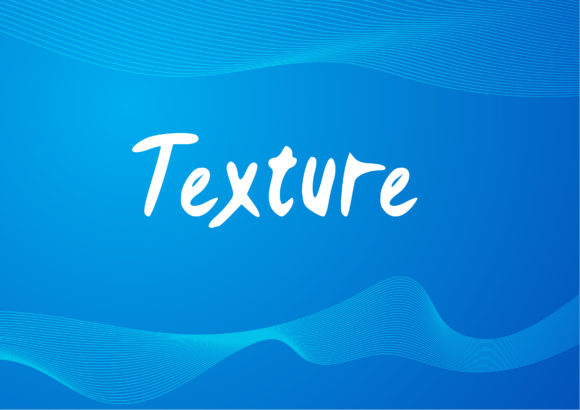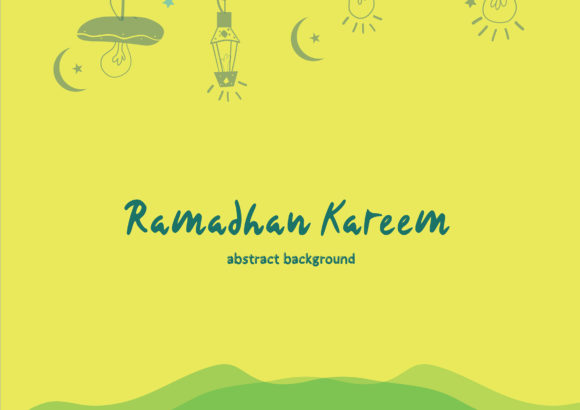
Introduction to Kolonjono Font Font
Have you ever been brainstorming for hours, trying to come up with the perfect idea for your next design project, but everything just seems to be missing that special something? You’re not alone. As creatives, we’re always on the lookout for that one resource that can take our projects from meh to mesmerizing. That’s where the Kolonjono Font Font comes in – a playful and modern handwritten font that’s guaranteed to boost your creativity and elevate your designs.
With its versatility and high-quality design, the Kolonjono Font Font is the perfect addition to any design resource. Whether you’re working on a logo design, social media campaign, or even a book title, this font is sure to make your project stand out. Plus, with its transparent background, you can easily pair it with any other font or design element to create a stunning visual effect.
Key Features of Kolonjono Font Font
- Features a unique, modern design with a transparent background, allowing for seamless integration with various backgrounds
- Supports a wide range of languages, making it a versatile choice for designers working on international projects
- Designed at a high resolution of 300 DPI, ensuring crisp and clear typography in various applications
- Perfect for use in logos, branding materials, and other design elements where a clean and modern font is required
Honest Review: Kolonjono Font Font
As a designer, I’m always on the lookout for high-quality design resources that can elevate my creative projects. The Kolonjono Font Font caught my attention with its unique and elegant design. Here’s my honest review.
✨ The Kolonjono Font Font is available for free download, making it a great addition to any design project. The font is also highly customizable, allowing me to easily adjust the size and color to fit my needs.
Features
- Transparent background, allowing for easy layering and compositing
Overall, I’m impressed with the Kolonjono Font Font. It’s a great addition to any designer’s toolkit, and its high-quality design and transparent background make it a versatile resource for creative projects.
The Kolonjono Font Font is perfect for use in creative projects such as logos, graphics, and typography-based designs. Its unique design and high quality make it a valuable resource for designers.
To get the most out of Kolonjono Font Font, experiment with different font sizes and colors to create visually appealing designs. Additionally, use the font in combination with other design resources to create a cohesive and high-quality design.
Alternatives to Kolonjono Font Font
Montserrat is a high-quality sans-serif font that is perfect for designers looking for a modern and sleek design resource. It is ideal for use in creative projects that require a clean and minimalist aesthetic. Montserrat is available for free download and features a transparent background, making it easy to use in a variety of design contexts.
Montserrat is similar to Kolonjono Font Font in its modern and sleek aesthetic, but it has a more geometric feel. It is also more versatile and can be used in a wider range of design contexts.
Great Vibes is a beautiful script font that is perfect for designers looking for a creative and elegant design resource. It is ideal for use in projects that require a touch of sophistication and whimsy. Great Vibes is available for free download and features a transparent background, making it easy to use in a variety of design contexts.